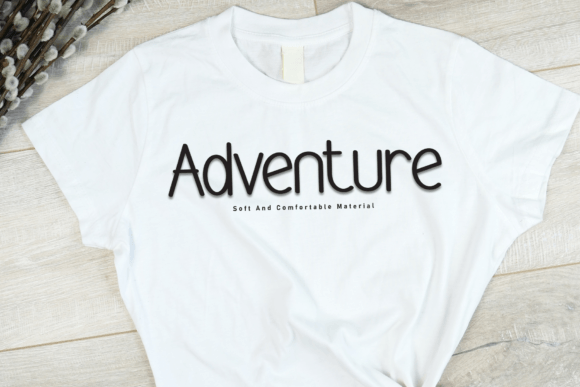
Mango Juice Font: The Perfect Casual Handwritten Font for Your Creative Projects
Mango Juice Font is a unique and refreshing casual handwritten font that can add a relaxed and playful vibe to any project. Its bold and approachable letterforms make it perfect for headlines, posters, and branding. In this article, we’ll explore the features and benefits of Mango Juice Font and how it can enhance your creative work.
What is Mango Juice Font?
Mango Juice Font is a casual handwritten font designed to bring a sense of fun and spontaneity to your creative projects. Its easygoing style makes it perfect for a wide range of applications, from headlines and posters to branding and packaging. The font’s bold and approachable letterforms are sure to grab attention and leave a lasting impression.
Key Features of Mango Juice Font
- Relaxed and Playful Vibe: Mango Juice Font has a unique and refreshing style that can add a relaxed and playful vibe to any project.
- Bold and Approachable Letterforms: The font’s bold and approachable letterforms make it perfect for headlines, posters, and branding.
- Easygoing Style: The font’s easygoing style effortlessly captures a sense of fun and spontaneity, enhancing any creative work.
- Perfect for Creative Projects: Mango Juice Font is perfect for a wide range of creative projects, from headlines and posters to branding and packaging.
Benefits of Using Mango Juice Font
Mango Juice Font offers a range of benefits for creative professionals and businesses. Here are some of the advantages of using this font:
- Unique and Refreshing Style: Mango Juice Font has a unique and refreshing style that can help your brand stand out from the competition.
- Attention-Grabbing: The font’s bold and approachable letterforms are sure to grab attention and leave a lasting impression.
- Versatile: Mango Juice Font is perfect for a wide range of creative projects, from headlines and posters to branding and packaging.
- Easy to Read: The font is easy to read, making it perfect for body text and other applications where readability is important.
How to Use Mango Juice Font
Mango Juice Font is easy to use and can be incorporated into a wide range of creative projects. Here are some tips on how to use the font:
- Headlines and Posters: Use Mango Juice Font for headlines and posters to grab attention and add a playful vibe.
- Branding and Packaging: Use the font for branding and packaging to add a unique and refreshing style to your products.
- Body Text: Use Mango Juice Font for body text to add a touch of personality and whimsy to your writing.
Mango Juice Font in Graphic Design
Mango Juice Font can be used in a wide range of graphic design applications, from brochures and flyers to posters and billboards. Its bold and approachable letterforms make it perfect for headlines and titles, while its easygoing style makes it suitable for body text and other applications.
Here are some examples of how Mango Juice Font can be used in graphic design:
- Brochures and Flyers: Use Mango Juice Font for headlines and titles to add a playful and attention-grabbing vibe.
- Posters and Billboards: Use the font for headlines and titles to grab attention and add a bold and playful style.
- Business Cards: Use Mango Juice Font for business cards to add a touch of personality and whimsy to your contact information.
Mango Juice Font in Digital Design
Mango Juice Font can also be used in digital design applications, from websites and social media to email marketing and online advertising. Its bold and approachable letterforms make it perfect for headlines and titles, while its easygoing style makes it suitable for body text and other applications.
Here are some examples of how Mango Juice Font can be used in digital design:
- Websites: Use Mango Juice Font for headlines and titles to add a playful and attention-grabbing vibe.
- Social Media: Use the font for social media graphics and posts to add a touch of personality and whimsy.
- Email Marketing: Use Mango Juice Font for email marketing campaigns to add a bold and playful style to your messages.
Tips and Tricks for Using Mango Juice Font
Here are some tips and tricks for using Mango Juice Font:
- Use it for Headlines: Mango Juice Font is perfect for headlines and titles, so use it to grab attention and add a playful vibe.
- Experiment with Colors: Mango Juice Font looks great in a wide range of colors, so experiment with different colors to find the one that works best for your project.
- Pair it with Other Fonts: Mango Juice Font can be paired with other fonts to create a unique and interesting look.
Mango Juice Font is a unique and refreshing casual handwritten font that can add a relaxed and playful vibe to any project. Its bold and approachable letterforms make it perfect for headlines, posters, and branding, while its easygoing style makes it suitable for body text and other applications. With its versatility, attention-grabbing style, and ease of use, Mango Juice Font is a great choice for creative professionals and businesses looking to add a touch of personality and whimsy to their creative work.
- What is Mango Juice Font? Mango Juice Font is a casual handwritten font designed to bring a sense of fun and spontaneity to your creative projects.
- What are the key features of Mango Juice Font? The font’s key features include a relaxed and playful vibe, bold and approachable letterforms, and an easygoing style.
- How can I use Mango Juice Font? Mango Juice Font can be used for a wide range of creative projects, from headlines and posters to branding and packaging.